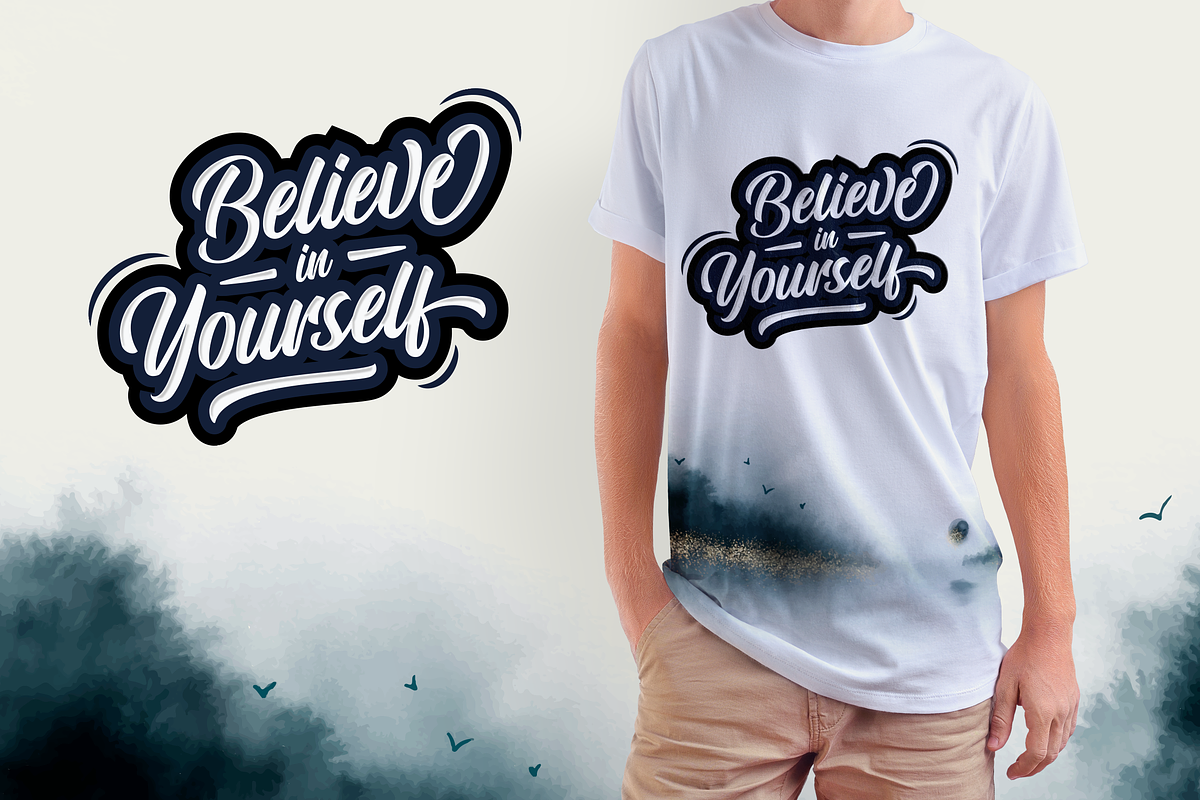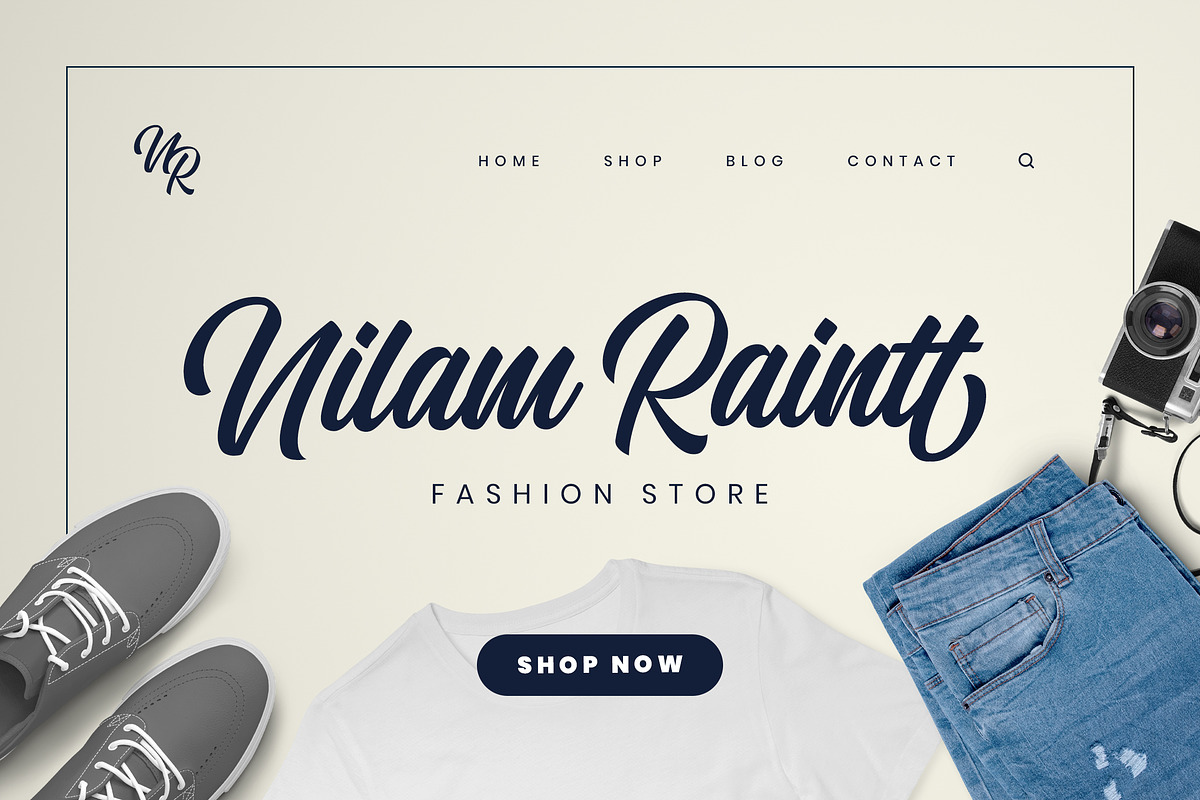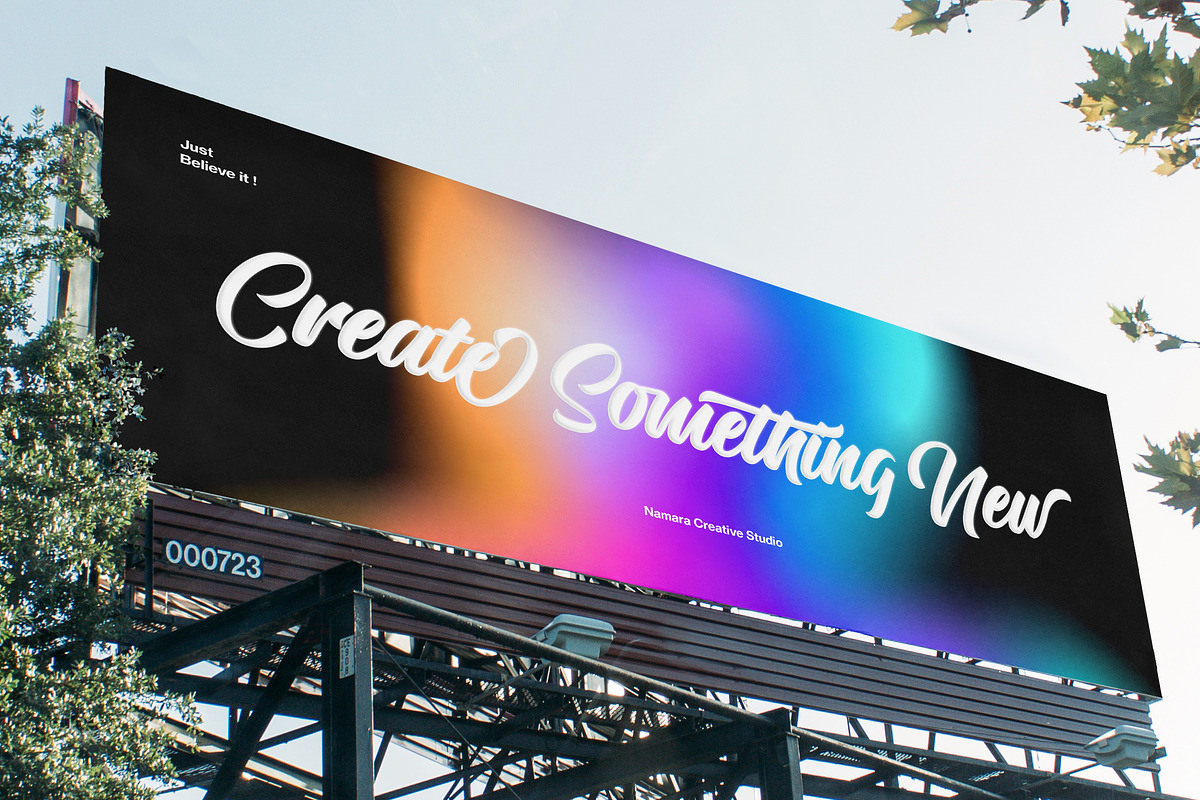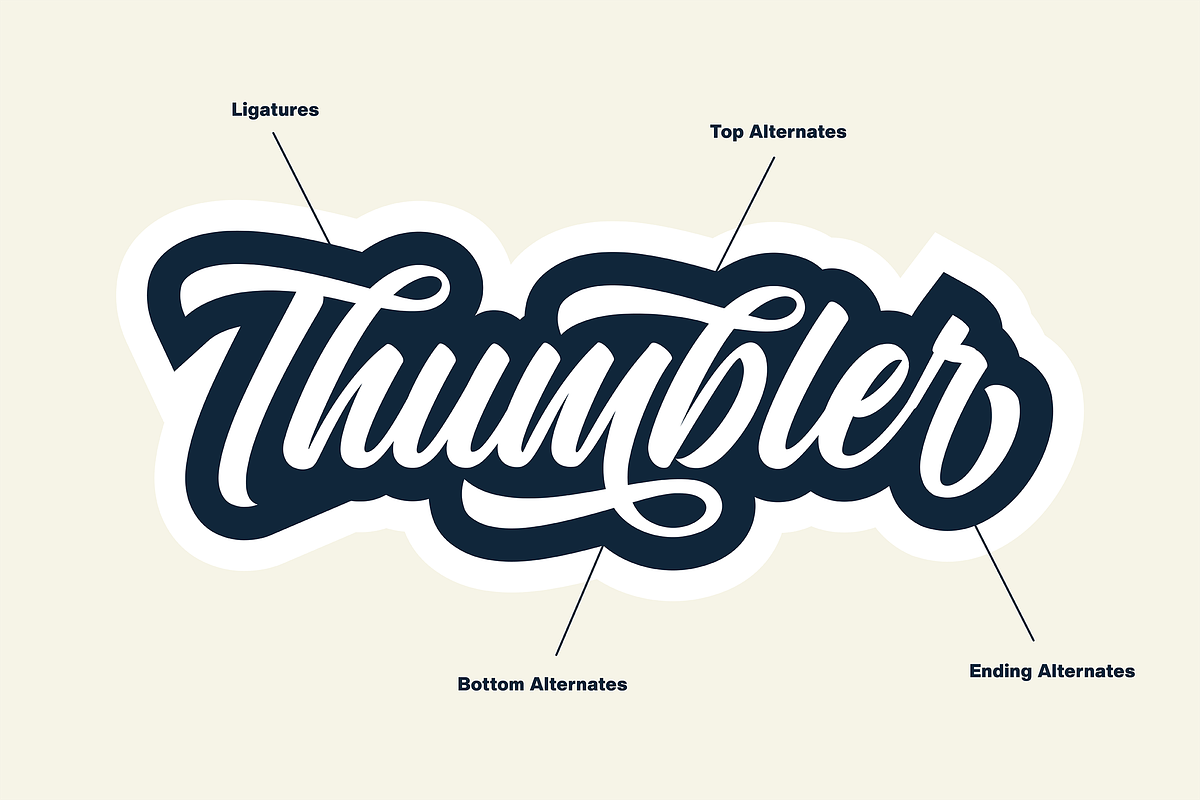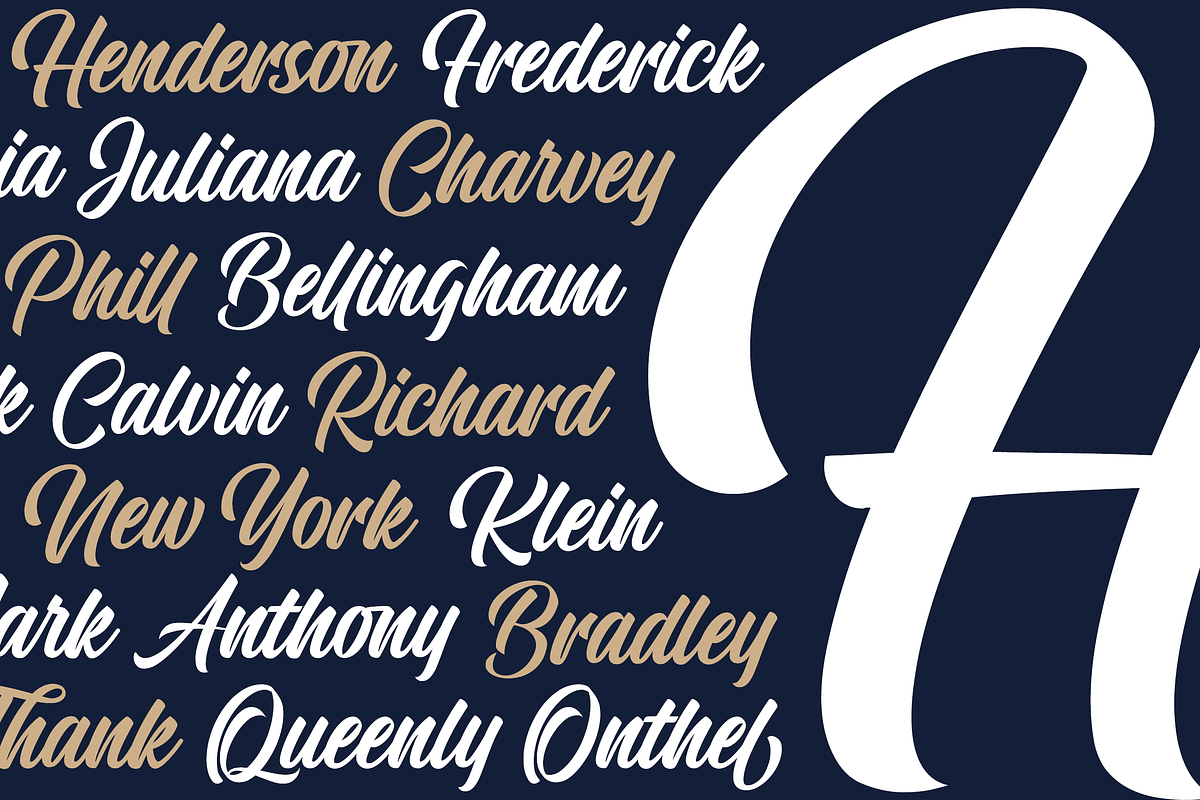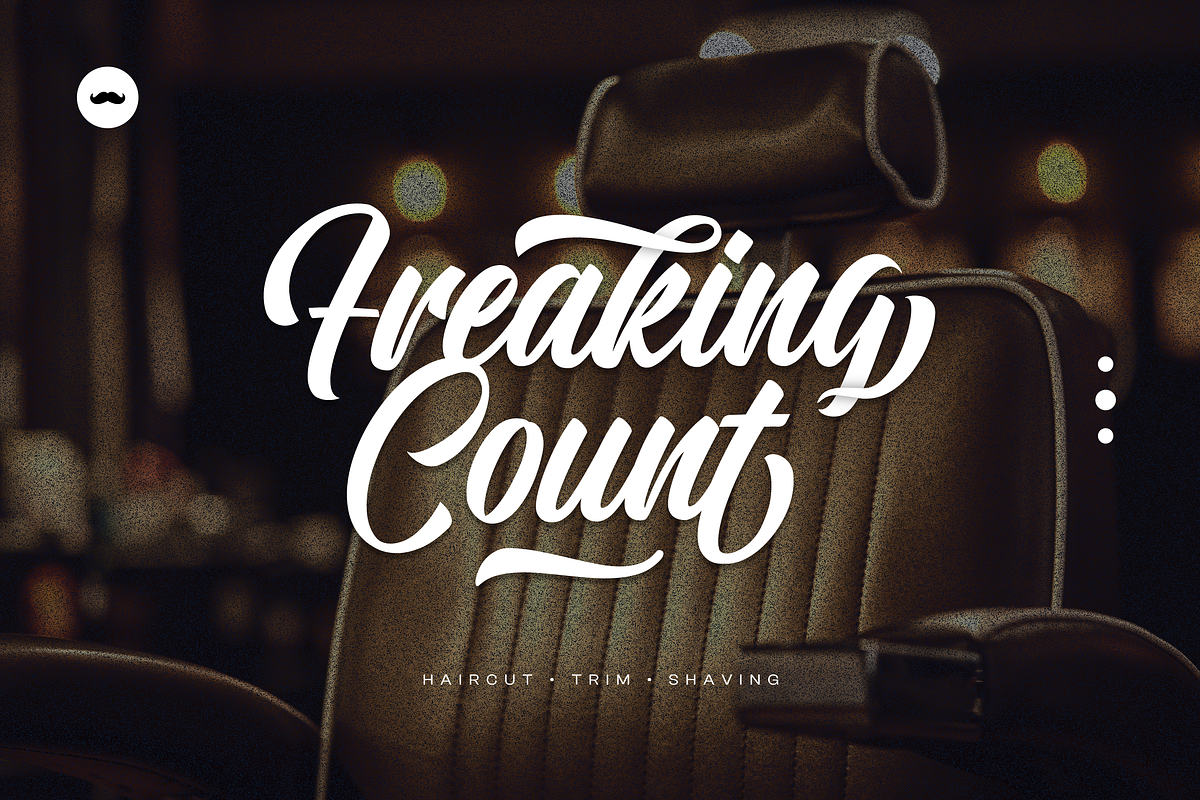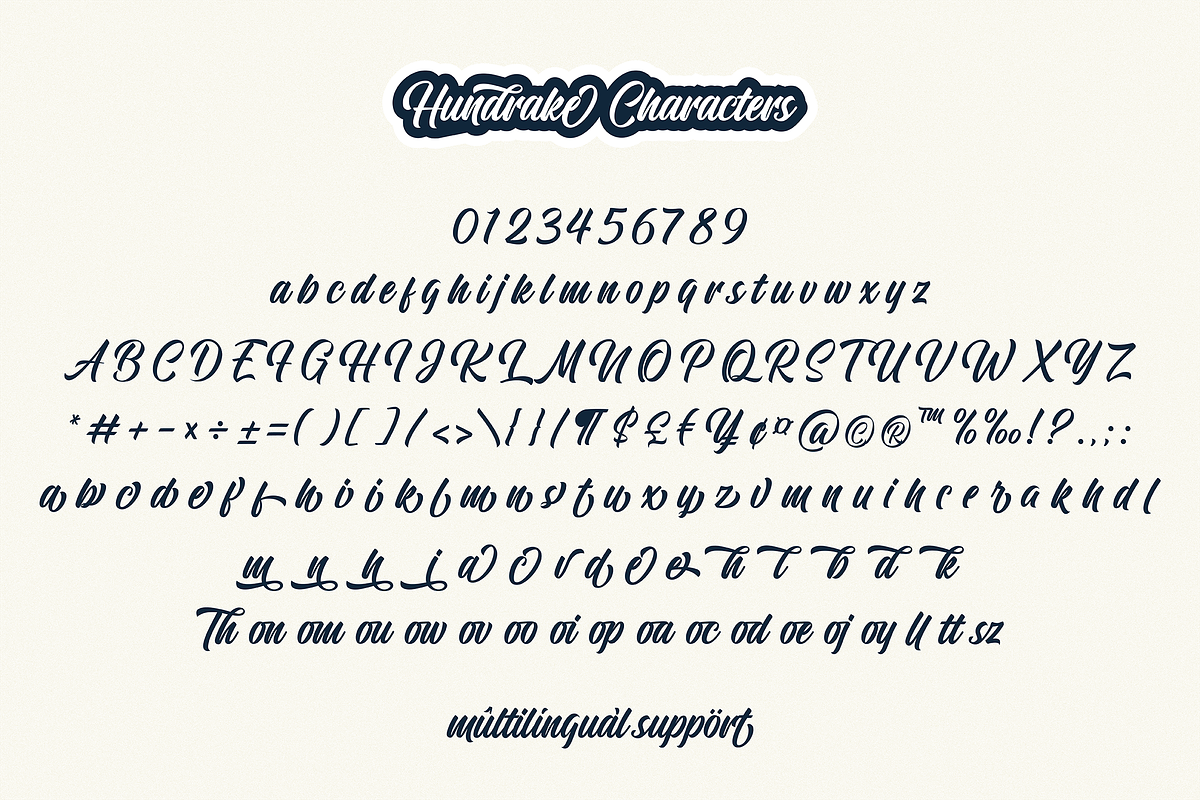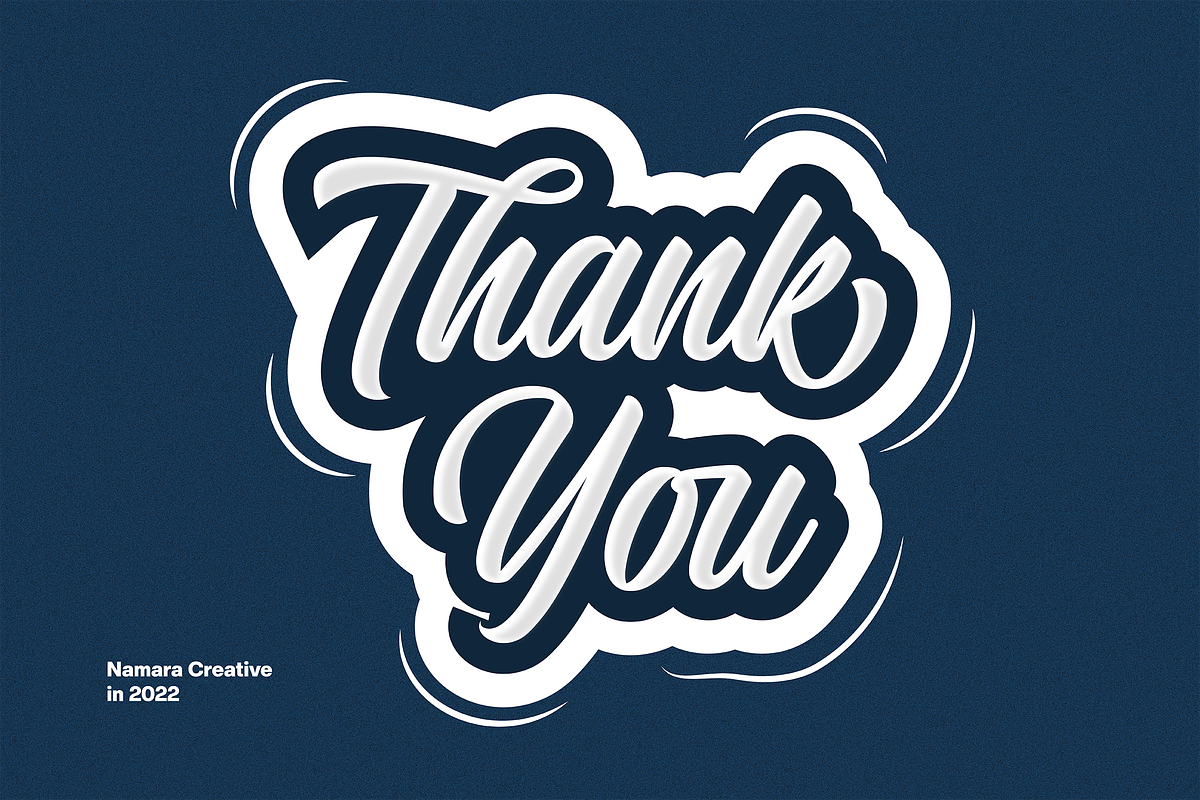
Hundrake Bold Script Font
Hundrake is a Bold modern and stylish script font with strong characteristic. It's allowing you to create logotype, lettering craft, label and many other project with suitable purpose. Add it to your most creative ideas and notice how it makes them come alive!
- Full Set of standard alphabet and punctuation.
- Alternates, ligatures, swash and multilingual support characters.